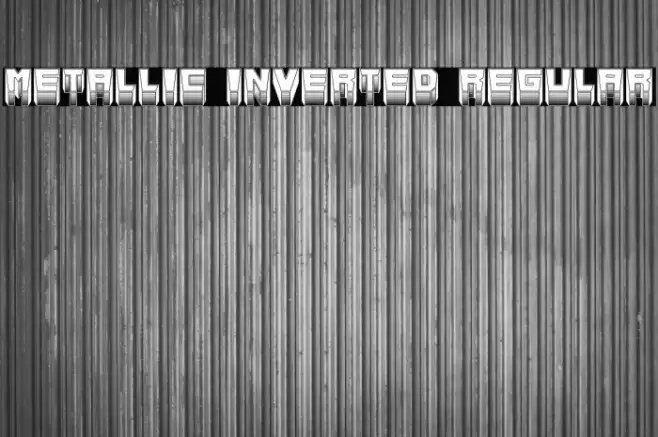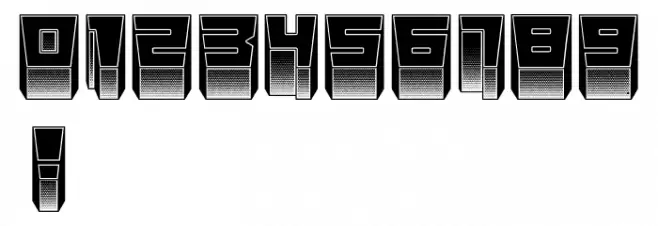
Metallic Inverted Regular Font
Metallic Inverted Regular Description
This font features a bold, three-dimensional design with a metallic and inverted appearance. The characters are blocky and robust, with a strong presence that makes them stand out. Each letter and number is designed with a gradient effect that gives the impression of depth and a metallic sheen. The font's style is reminiscent of industrial or futuristic themes, making it ideal for projects that require a bold and striking visual impact. The characters are evenly spaced, ensuring readability while maintaining their distinctive style.
A bold, three-dimensional font with a metallic, futuristic appearance from Uncategorized fonts.
- Proposed Projects: Ideal for use in video game titles, movie posters, sci-fi themed projects, and branding that requires a strong, industrial look.
- Overall Style: Futuristic, Industrial